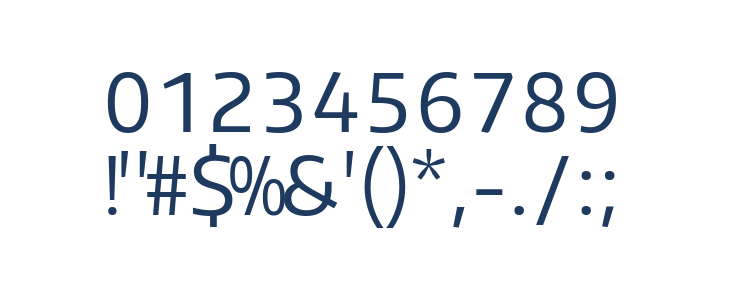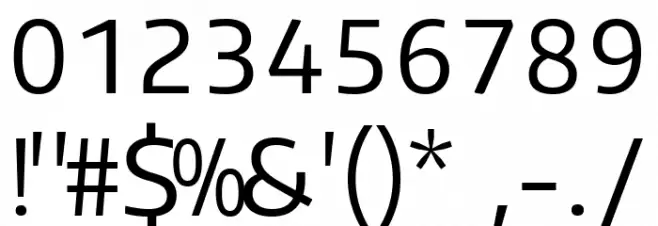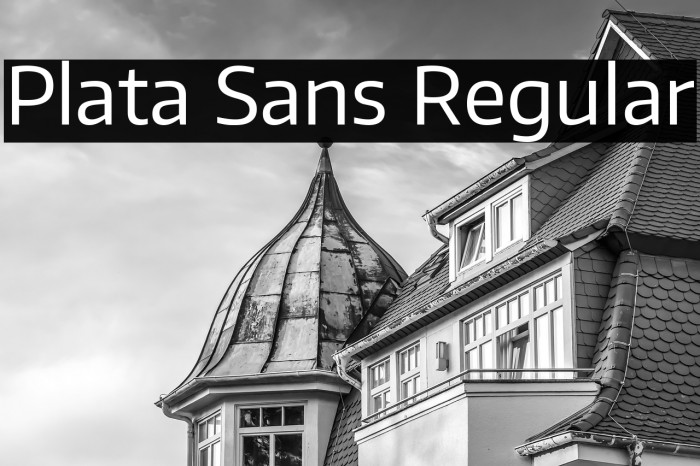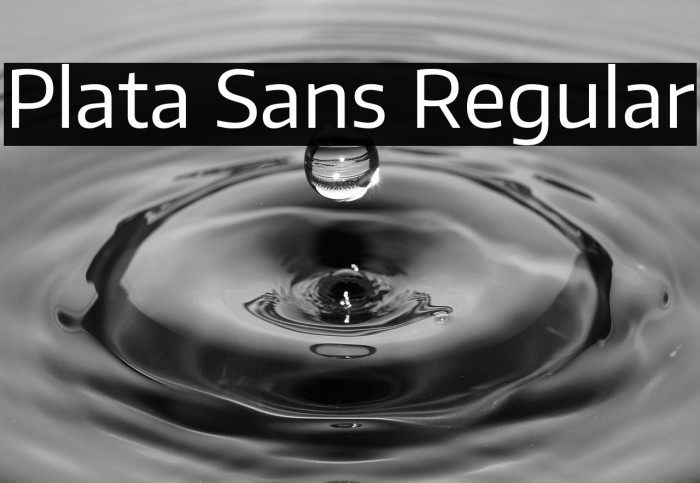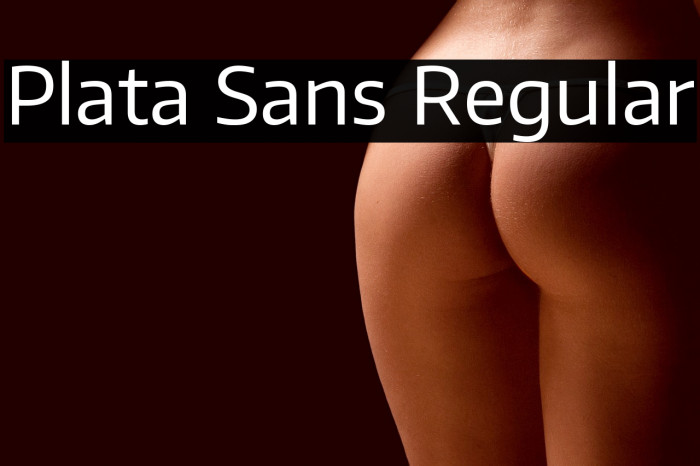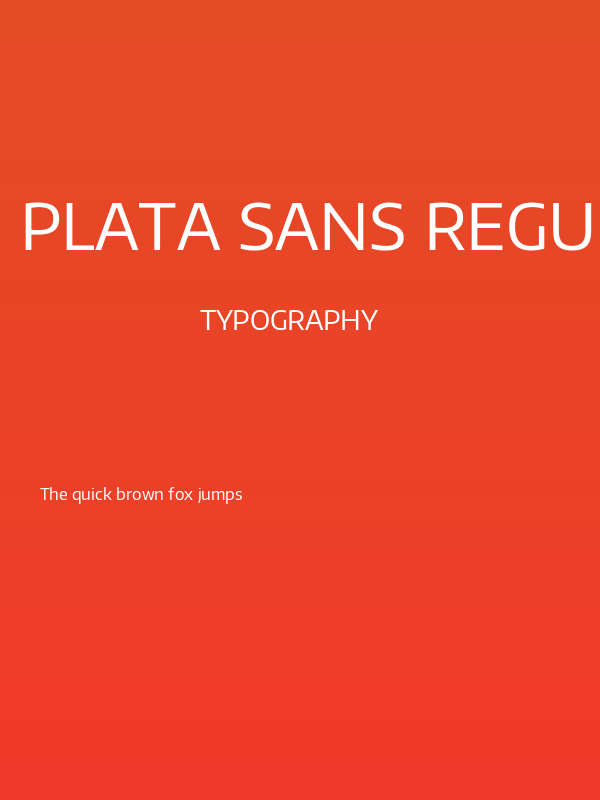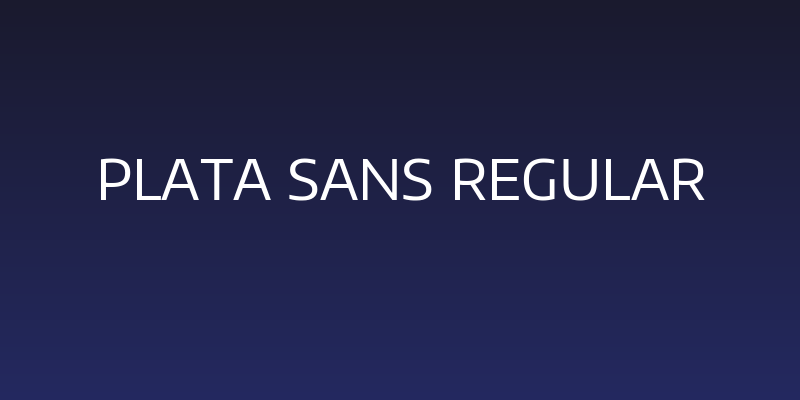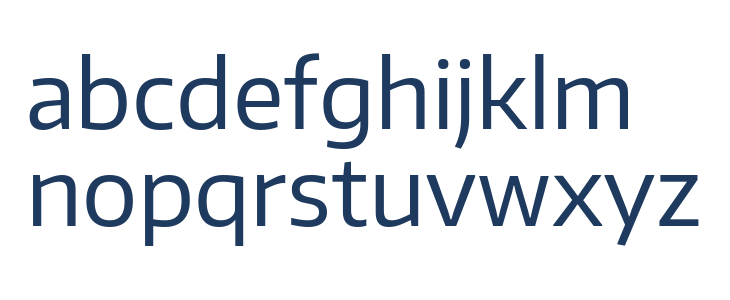
Plata Sans Regular Font
Plata Sans Regular Description
This font exhibits a clean and modern sans-serif style, characterized by its geometric shapes and uniform stroke widths. The uppercase letters are bold and assertive, while the lowercase letters maintain a friendly and approachable appearance. The numerals are clear and easy to read, making them suitable for various applications. Special characters are well-defined, adding to the font's versatility. The overall design is minimalistic, with a focus on readability and functionality, making it ideal for both digital and print media.
Use CaseHeadlines, Body text, Logos
Proposed ProjectsIdeal for branding, web design, user interfaces, and editorial layouts.